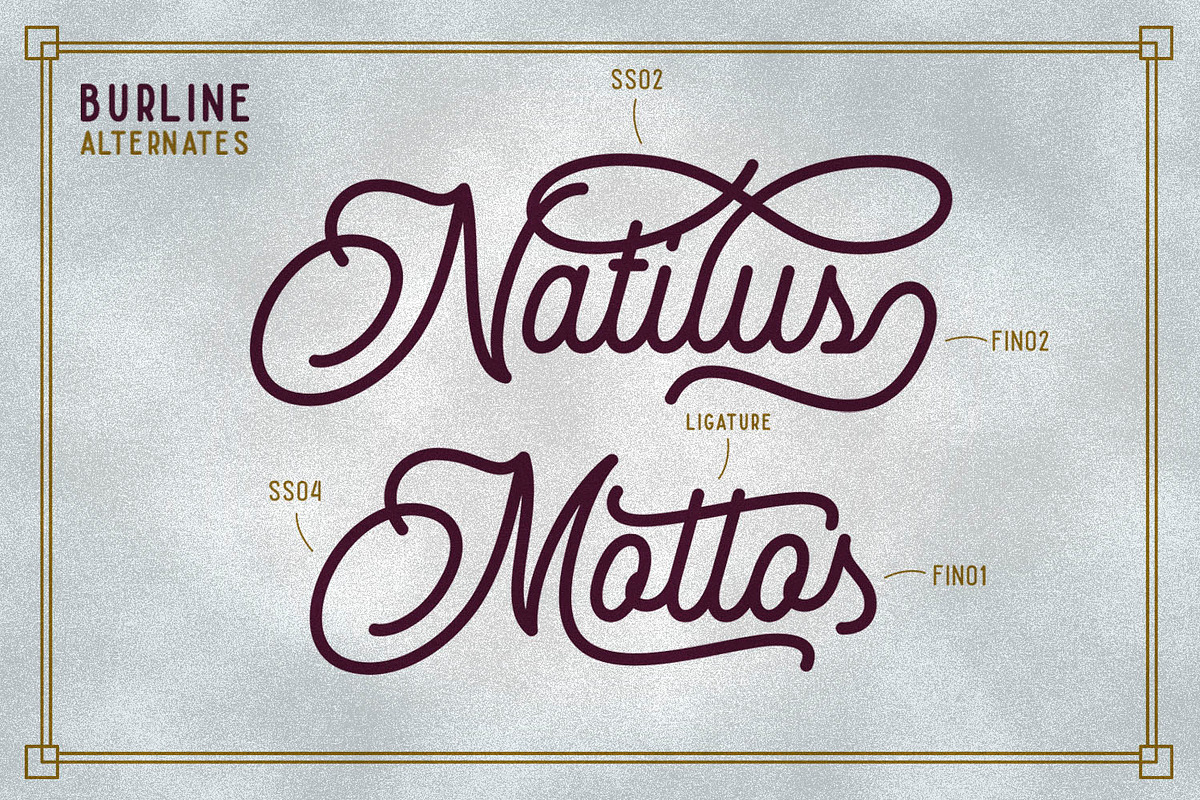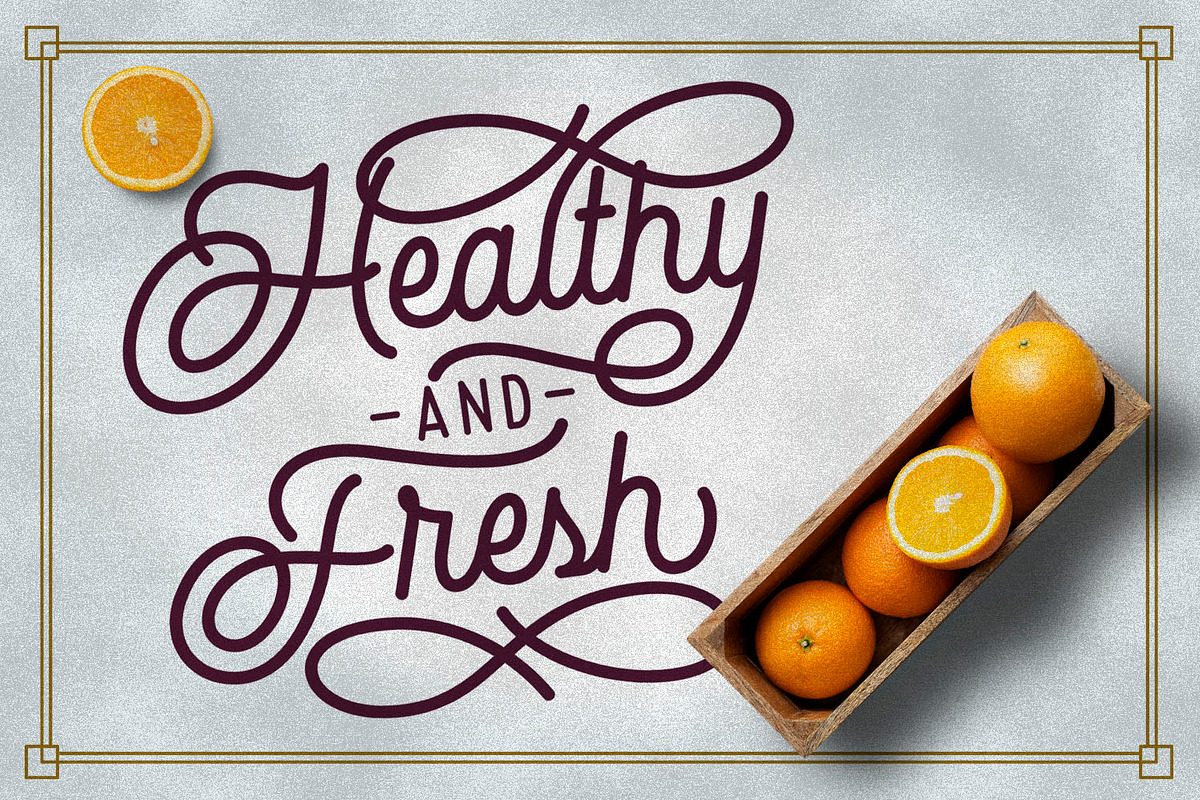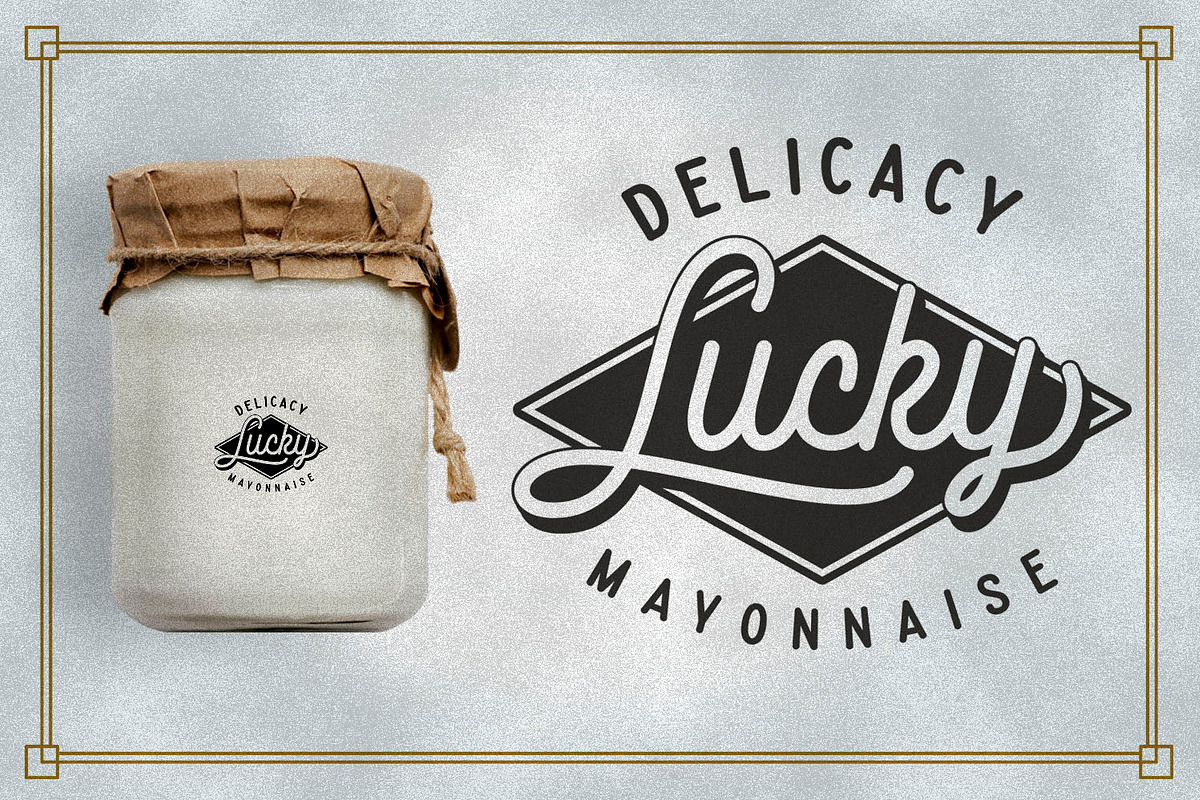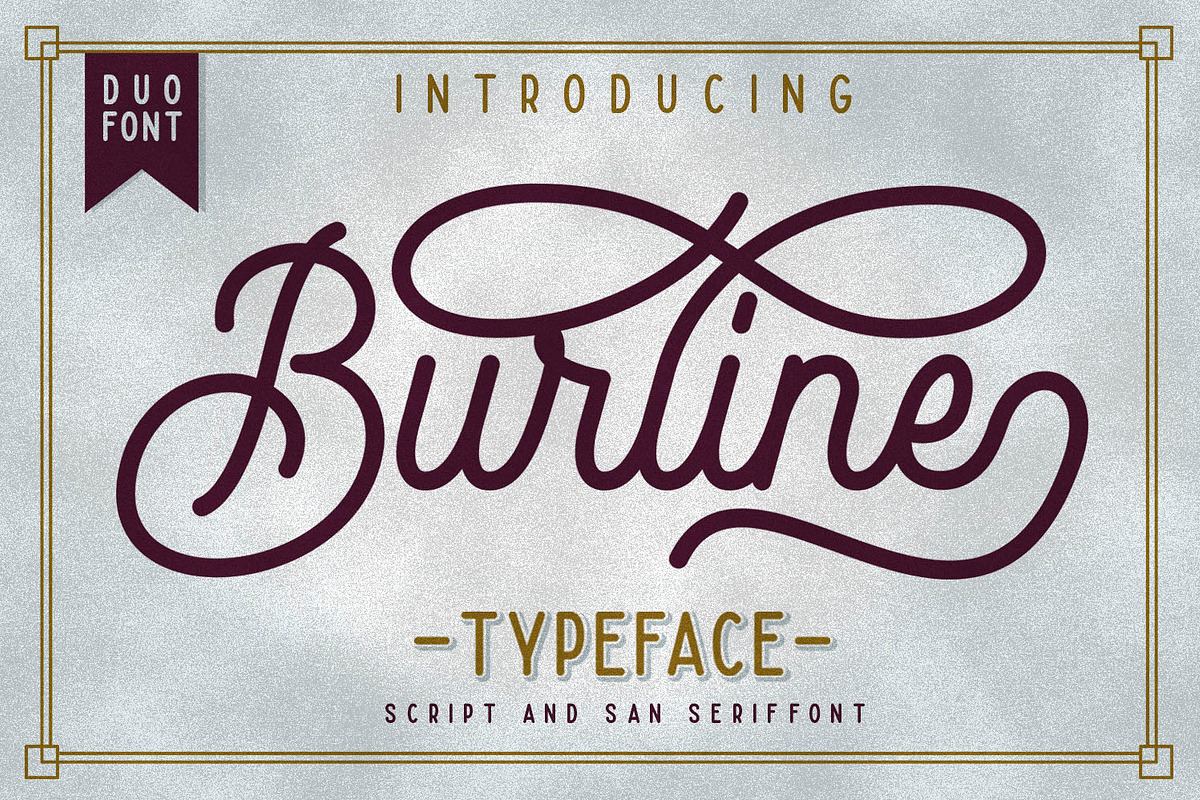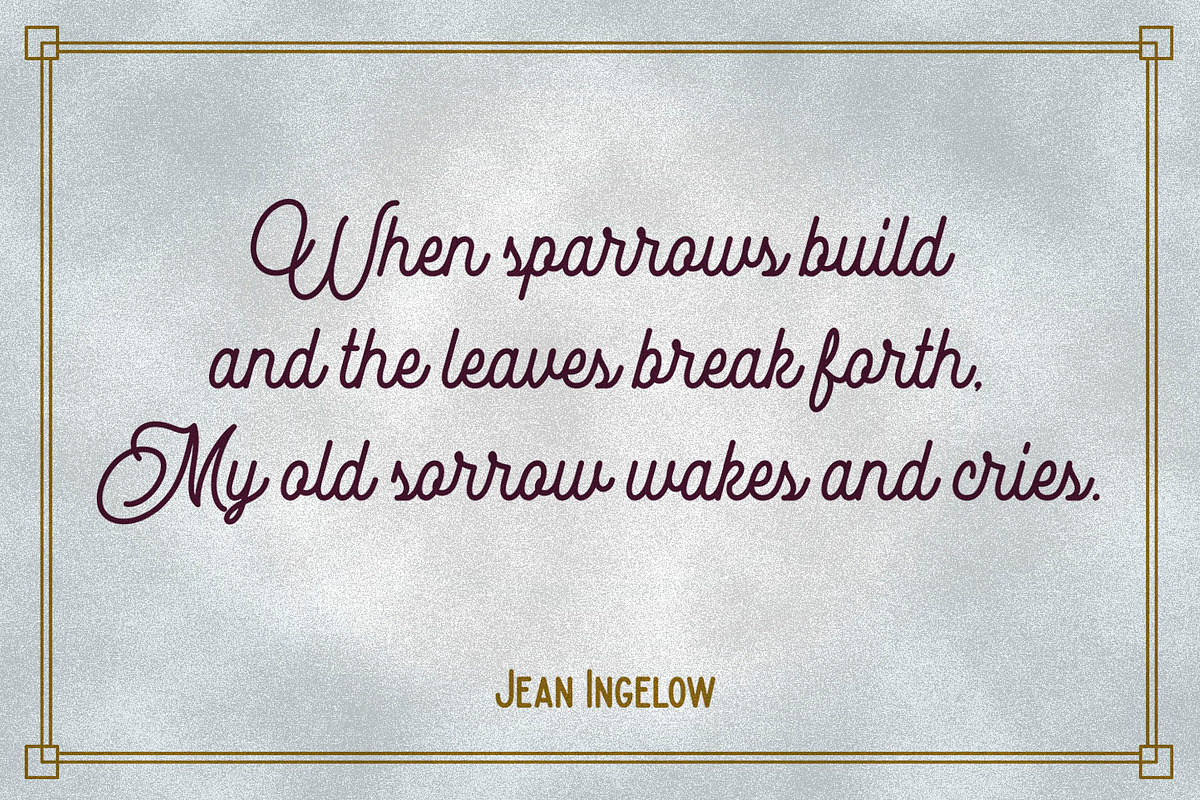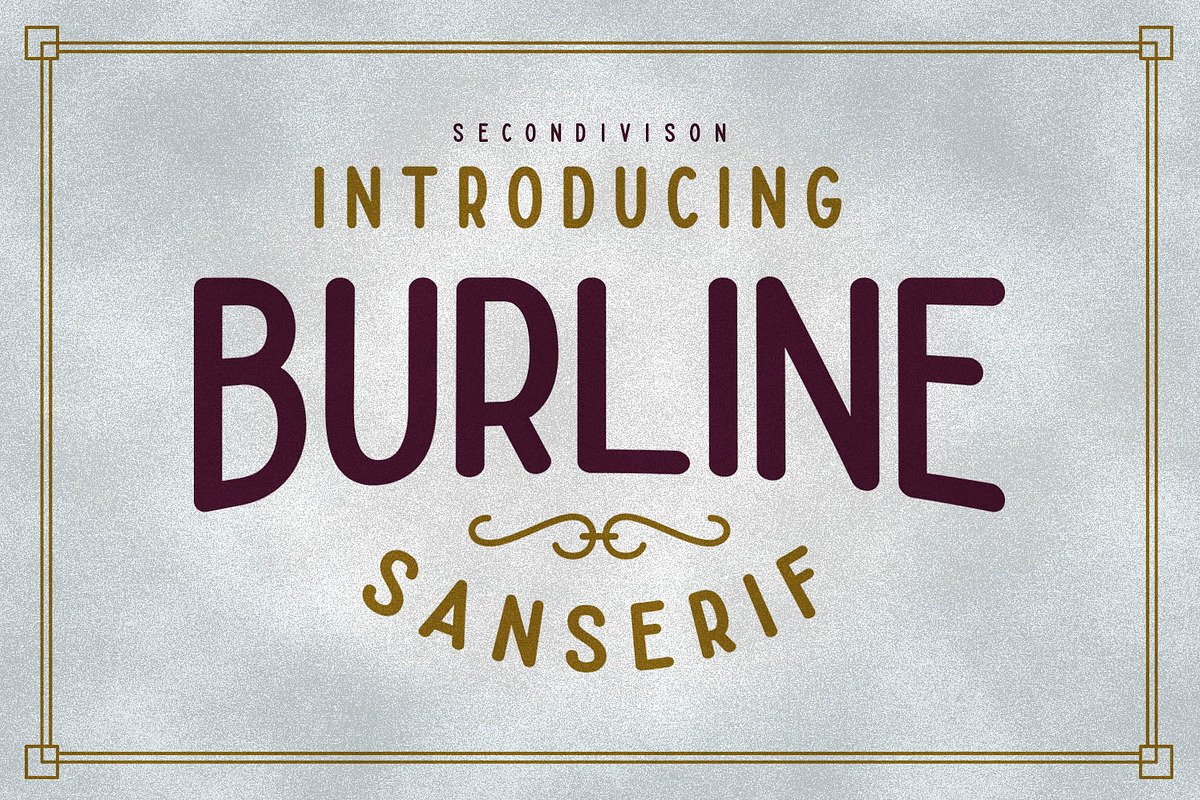
Burline Typeface
Introducing Burline Typeface. Burline typeface has two different font types namely Burline script and Burline San Serif font. Burline script is a font with monoline style. This font has a soft and smooth character. There are many alternate characters in each letter, so you can create different styles on each of your designs. Burline san serif also has a monoline style. This font can be a complement of the Burline script. Combine Burline script and Burline San Serif for your nice design.
This font very good for your logo design, poster design, wedding invition, name card, T-Shirt design, etc.
- There are many alternate characters in each letter, so you can create different styles on each of your designs.
Burline Typeface by Secondivison Supply fits naturally into Branding, posters, packaging, typography.